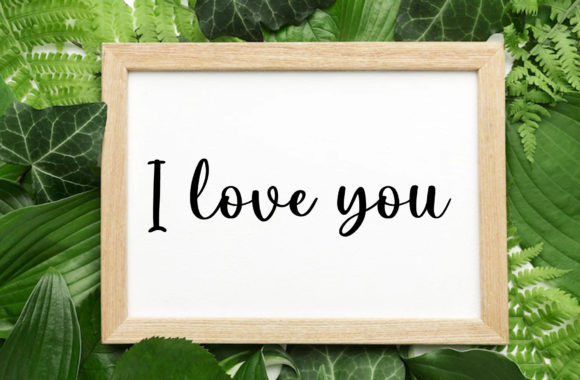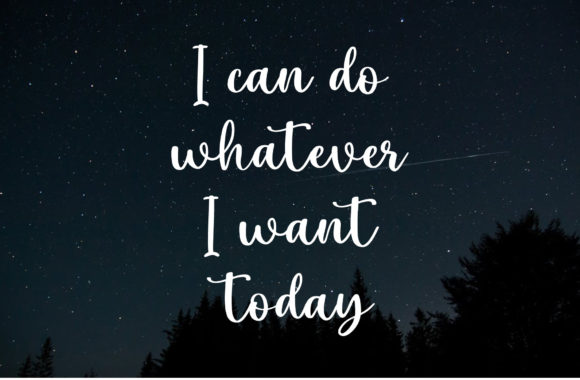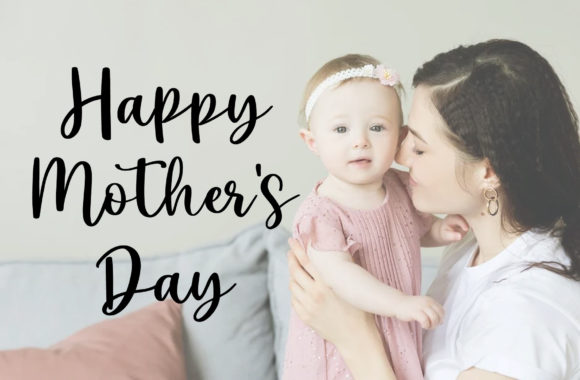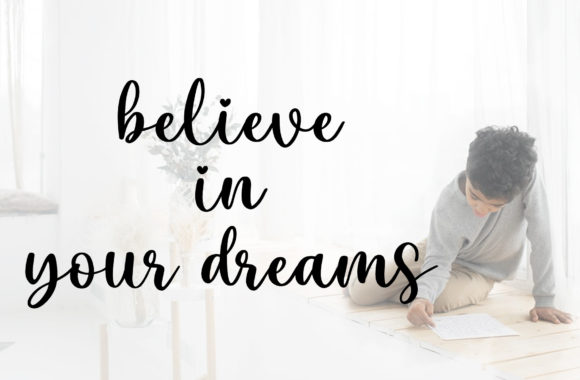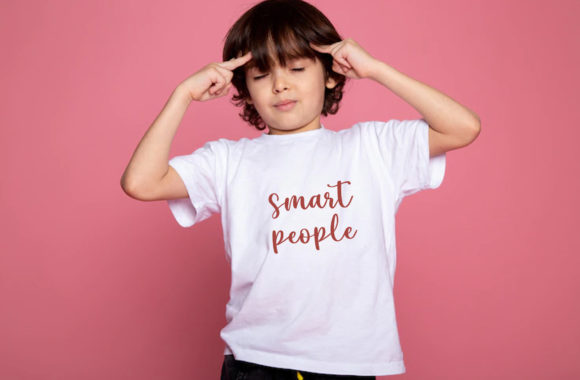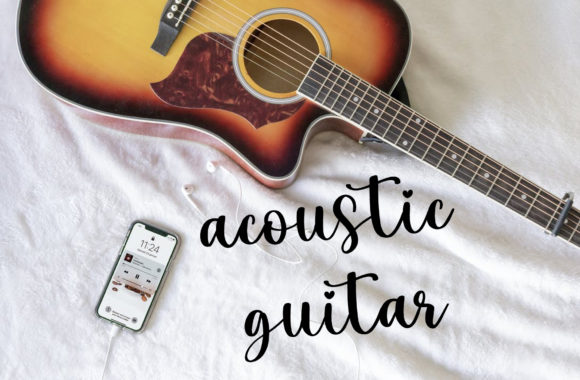
Introducing Brilliant Font: Elevate Your Designs with Luxurious Handwritten Elegance
Are you tired of using the same old fonts in your designs? Do you want to add a touch of sophistication and elegance to your creative projects? Look no further than Brilliant Font, a stunning handwritten font that is sure to take your designs to the next level. With its beautiful and balanced character, Brilliant Font is the perfect choice for designers and crafters who want to add a luxurious feel to their work.
The Characteristics of Brilliant Font
Brilliant Font is a luxurious handwritten font that exudes elegance and flow. Its beautiful and balanced character makes it an ideal choice for a wide range of designs, from wedding invitations and branding materials to social media graphics and digital art. The font’s flowing lines and curves create a sense of movement and sophistication, making it perfect for designs that require a touch of luxury.
Why Choose Brilliant Font?
So, why choose Brilliant Font over other fonts? Here are just a few reasons why this font stands out:
- PUA Encoding: Brilliant Font is PUA (Private Use Area) encoded, which means that you can access all of the amazing glyphs and ligatures with ease. This makes it easy to add unique and creative touches to your designs.
- Balanced Character: The font’s balanced character ensures that it looks great in a variety of designs, from bold and dramatic to subtle and understated.
- Elegant and Luxurious: Brilliant Font has a luxurious, handwritten feel that adds a touch of sophistication to any design.
- Versatile: This font is versatile and can be used for a wide range of projects, from print materials to digital designs.
How to Use Brilliant Font in Your Designs
Using Brilliant Font in your designs is easy. Here are a few tips to get you started:
- Pair it with Other Fonts: Brilliant Font pairs well with a variety of other fonts, so don’t be afraid to experiment with different combinations.
- Use it for Headings and Titles: The font’s elegant and luxurious feel makes it perfect for headings and titles.
- Add a Personal Touch: Use Brilliant Font to add a personal touch to your designs, such as in wedding invitations or greeting cards.
- Experiment with Colors and Textures: Don’t be afraid to experiment with different colors and textures to add depth and interest to your designs.
Who is Brilliant Font for?
Brilliant Font is perfect for designers and crafters who want to add a touch of luxury and elegance to their work. This includes:
- Graphic Designers: Graphic designers who want to create stunning visual materials, such as brochures, flyers, and posters.
- Wedding Designers: Wedding designers who want to create beautiful and elegant wedding invitations, stationery, and decorations.
- Digital Artists: Digital artists who want to add a touch of sophistication to their digital art.
- Crafters: Crafters who want to create beautiful and unique handmade projects, such as cards, gift tags, and scrapbook pages.
In conclusion, Brilliant Font is a luxurious handwritten font that is sure to elevate your designs to the next level. With its beautiful and balanced character, PUA encoding, and elegant feel, this font is perfect for designers and crafters who want to add a touch of sophistication and luxury to their work. So why wait? Download Brilliant Font today and see how it can bring your creative ideas to life!